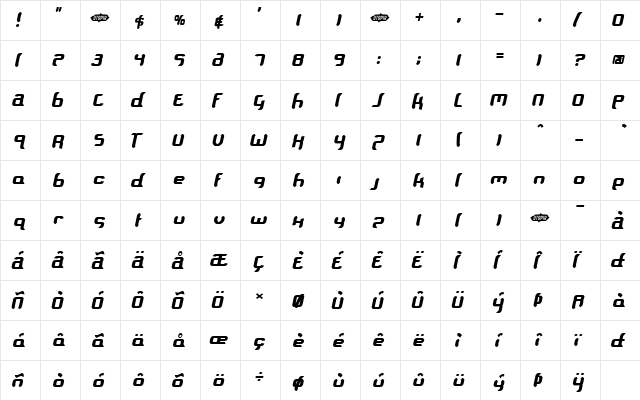
Supersoulfighter Regular
Design Context for Supersoulfighter Typeface
Supersoulfighter is a composed and adaptable typeface that performs quietly and consistently across a wide range of design contexts.